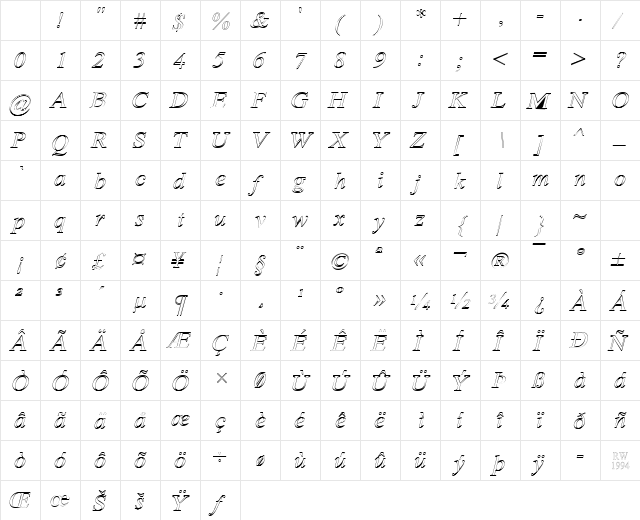
Amerton Outline is built around its visual character rather than neutral utility - its distinctive forms are designed to make an impression at display sizes. The slanted form adds forward momentum and visual energy.
Font Pairing: Pair with a clean neutral sans-serif for body copy to let Amerton Outline's character lead without overwhelming the composition.
Pro Tip: Use Amerton Outline exclusively at display sizes - it was designed to be seen, not read at length. Let a neutral companion handle body copy.